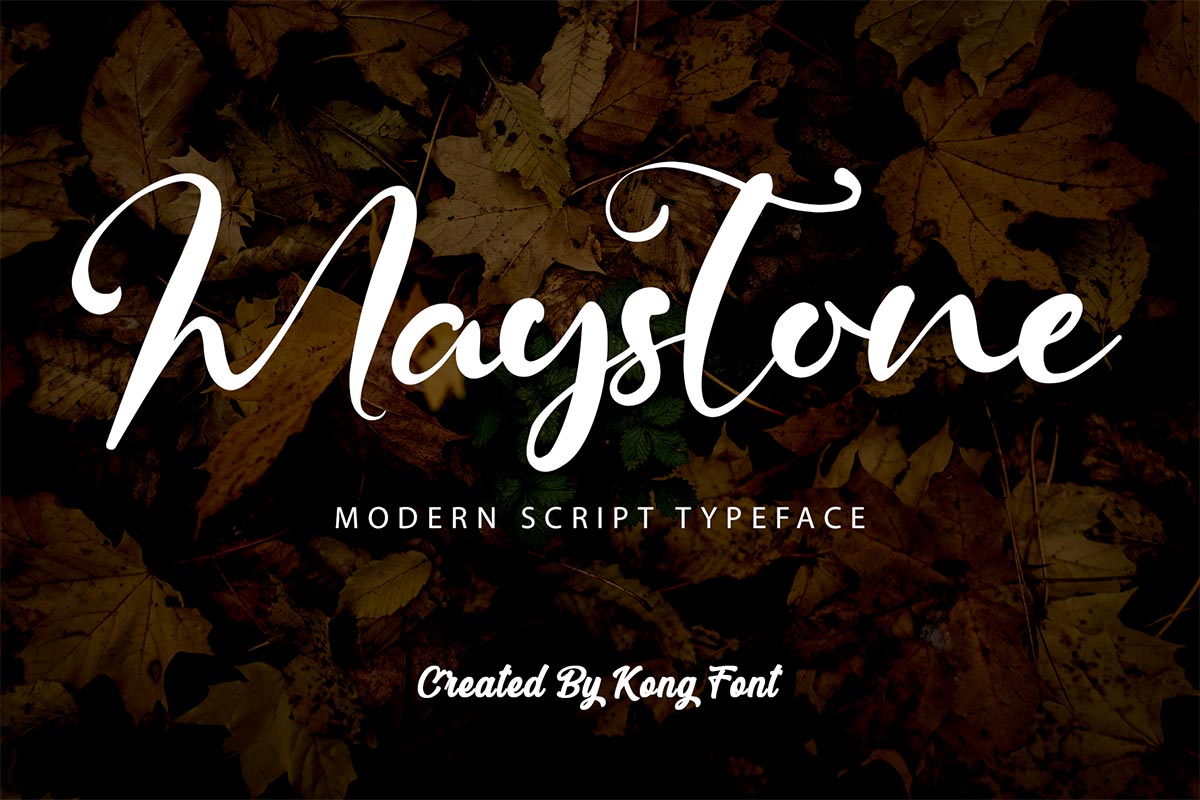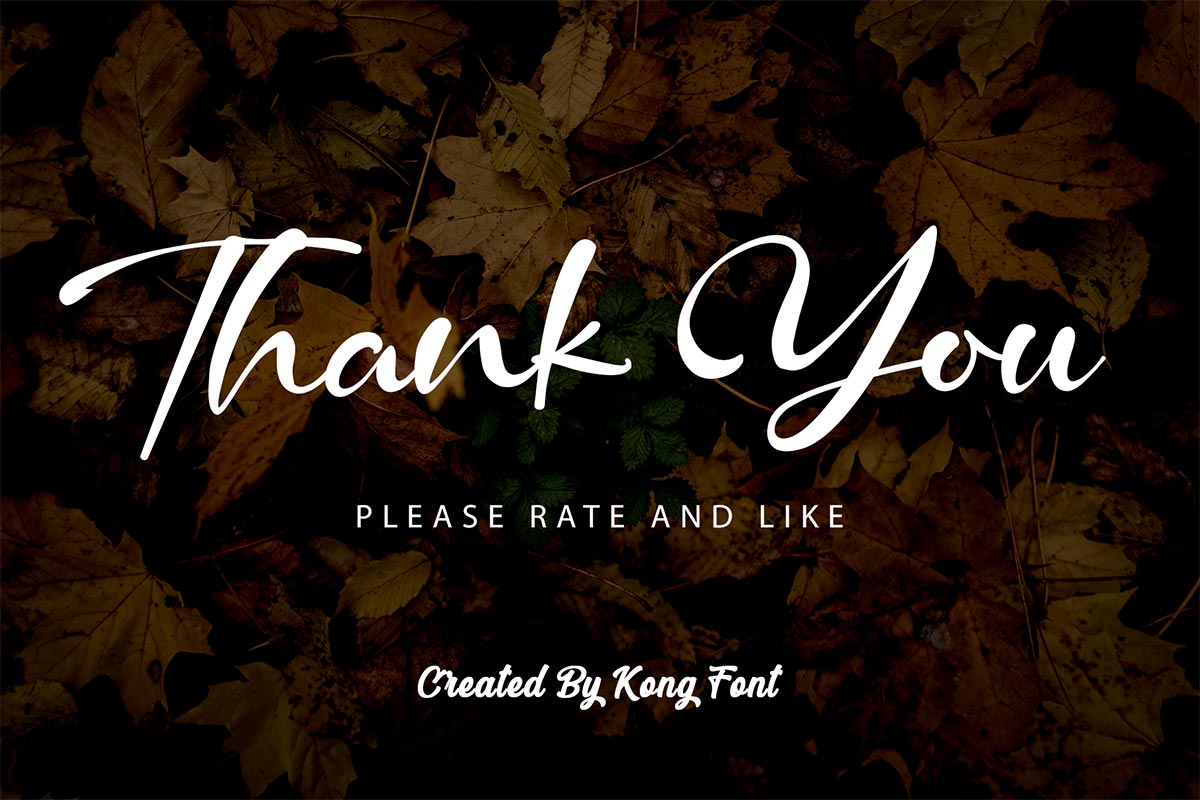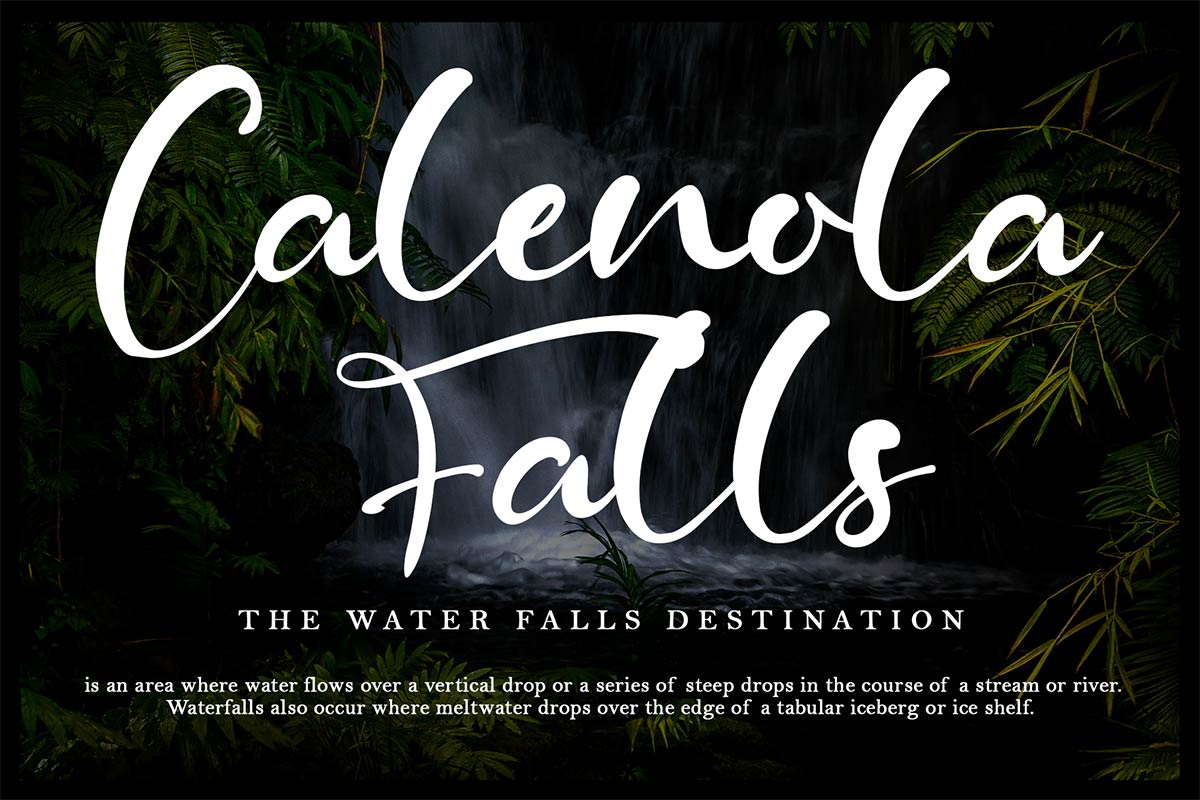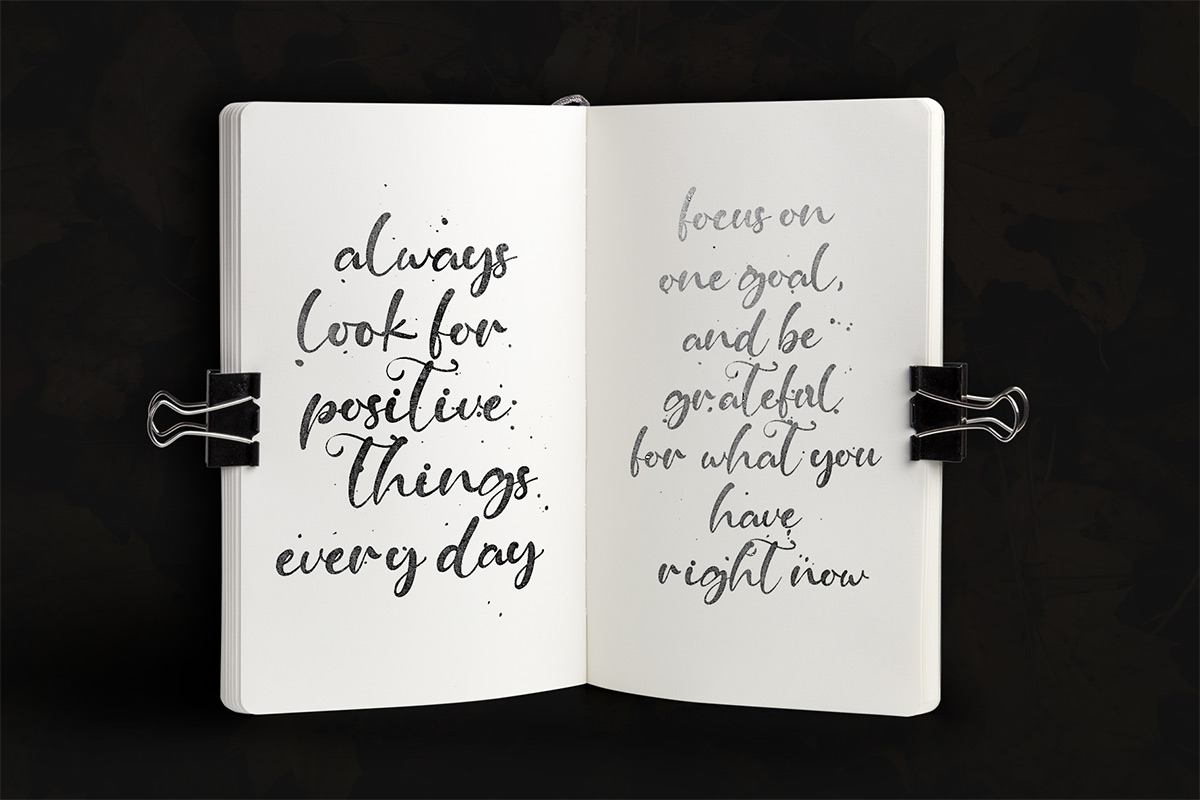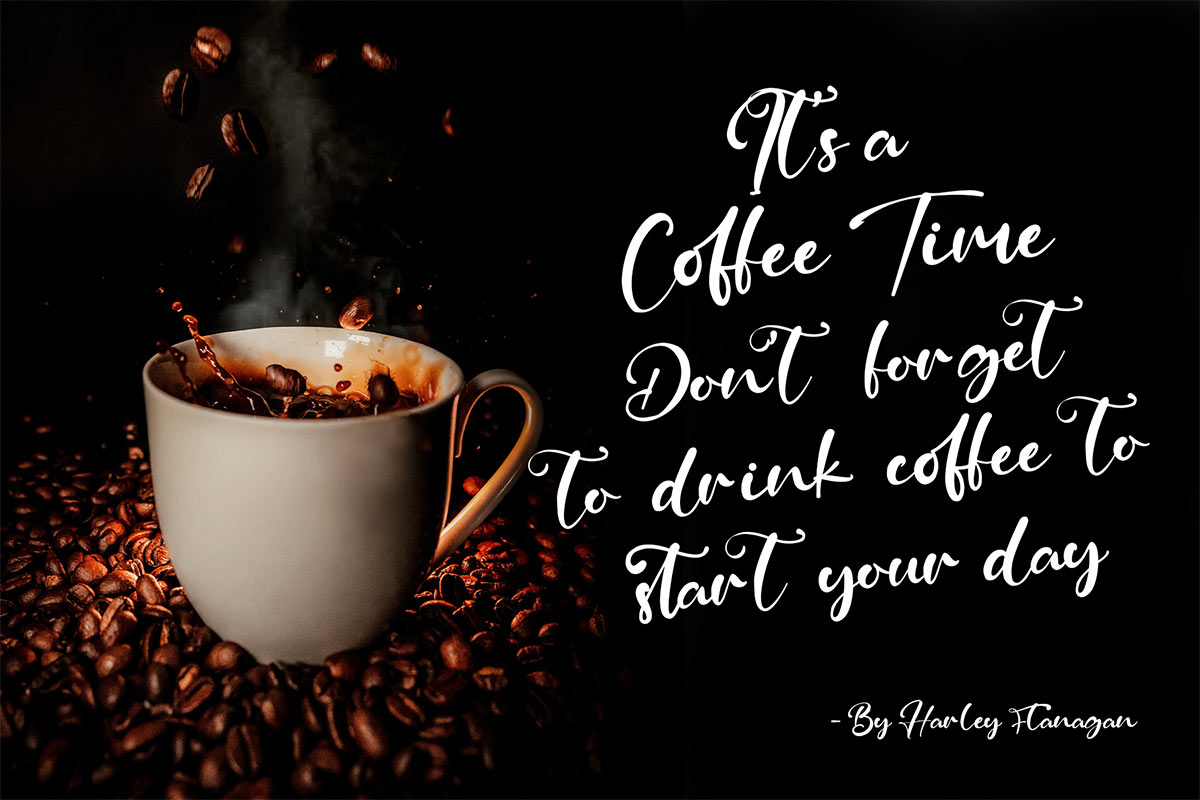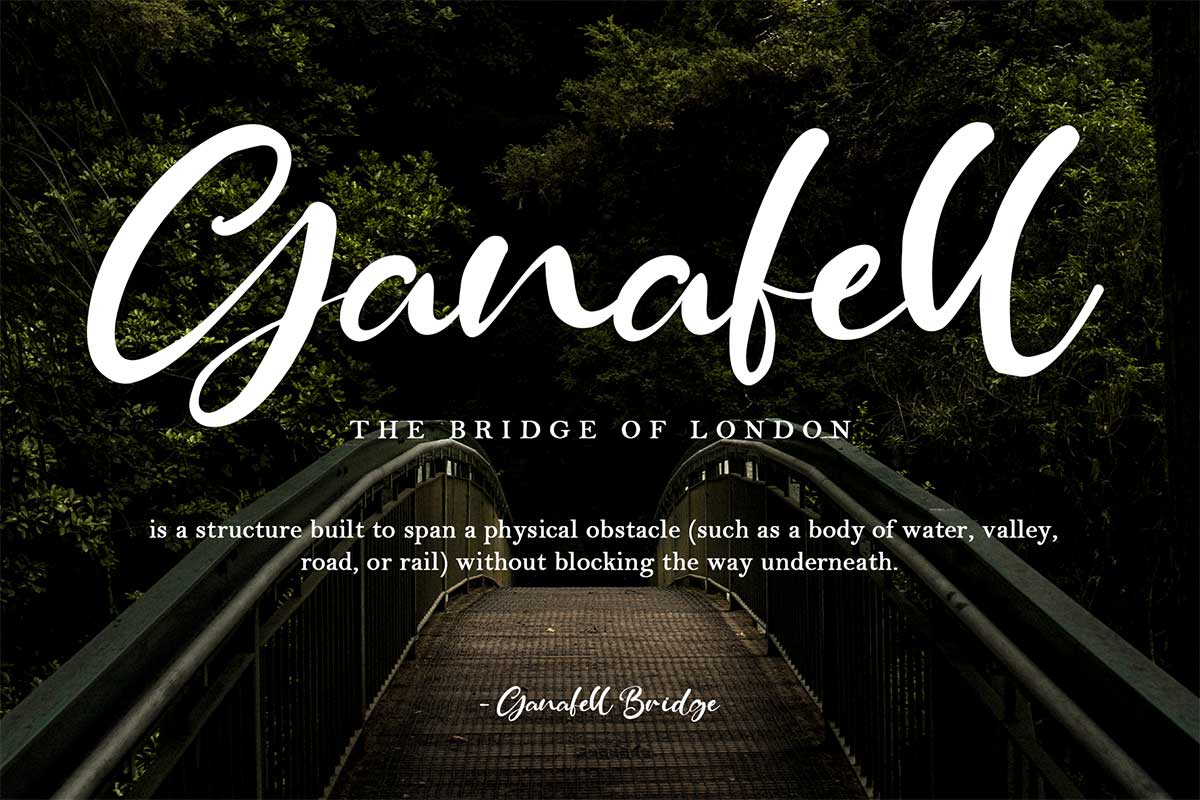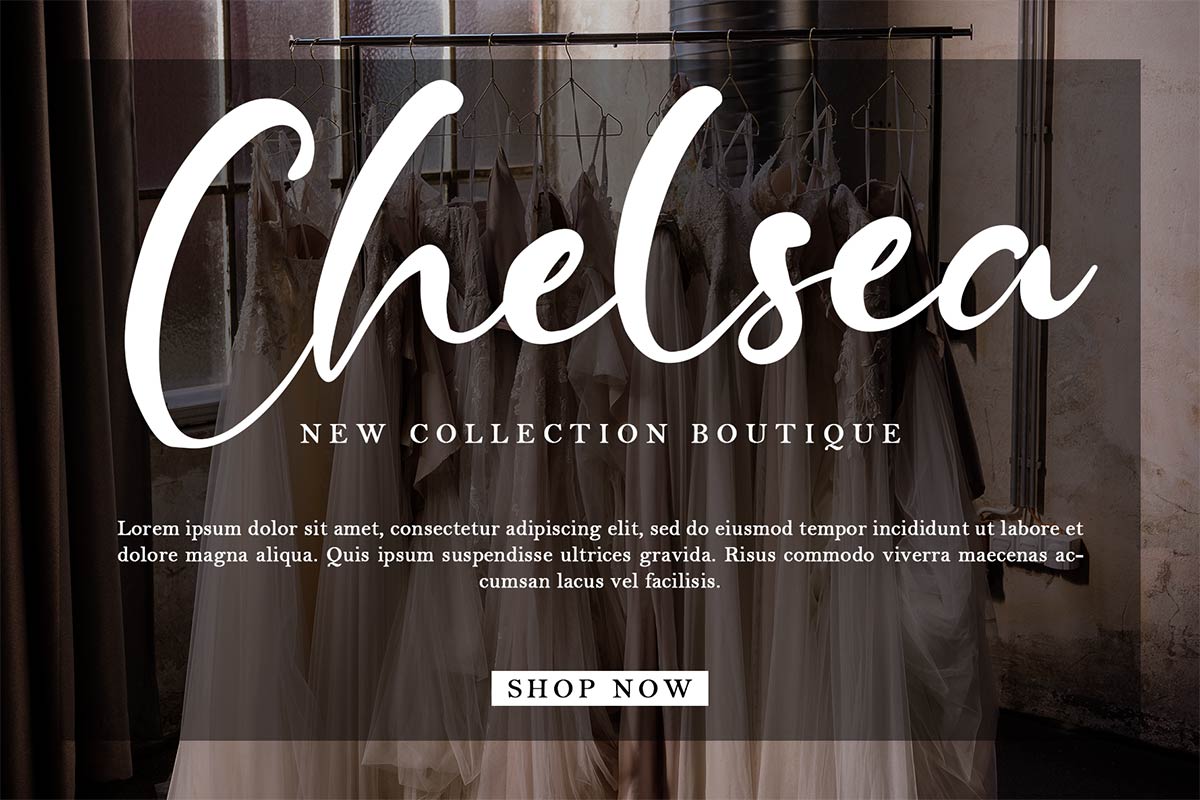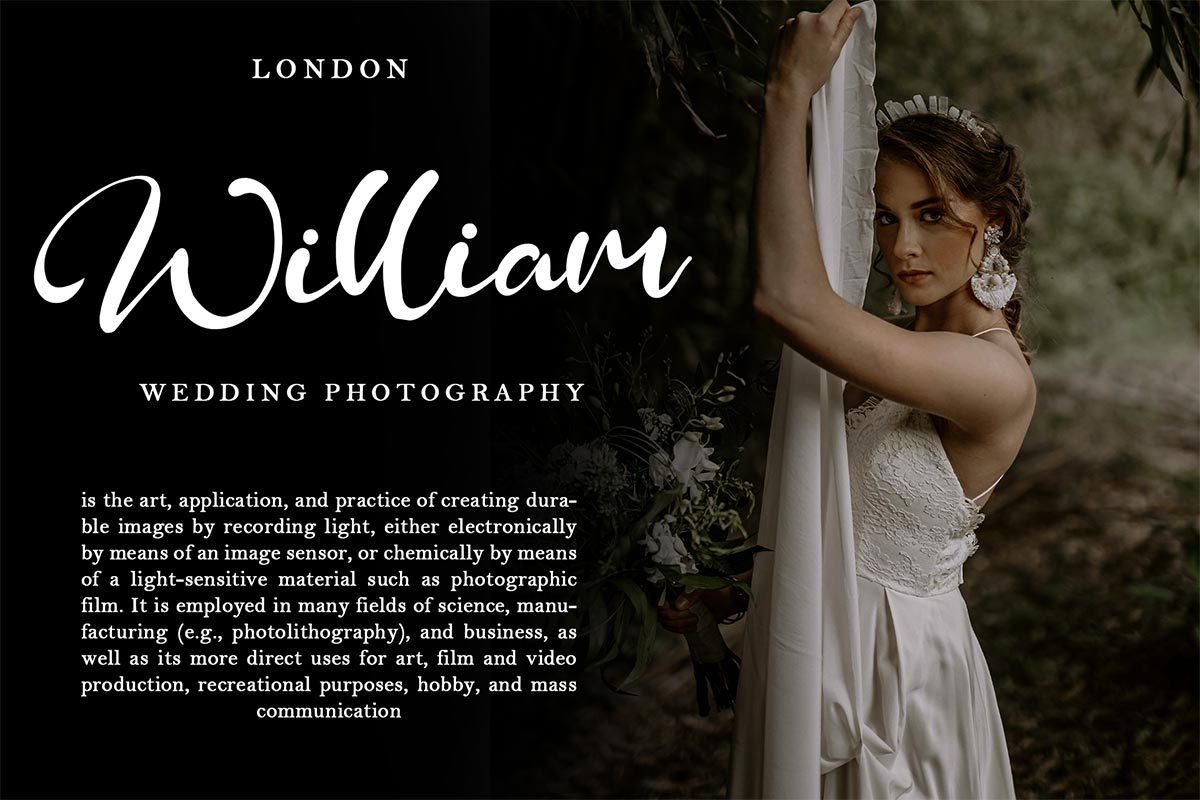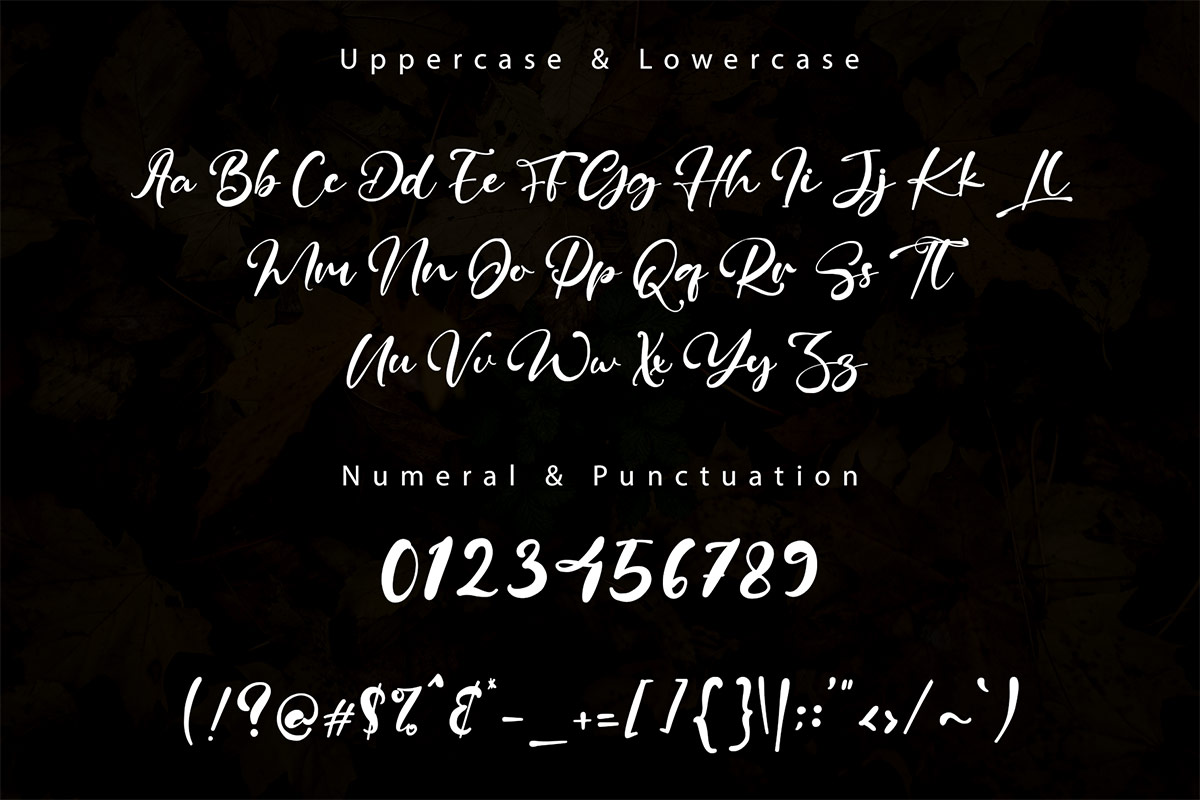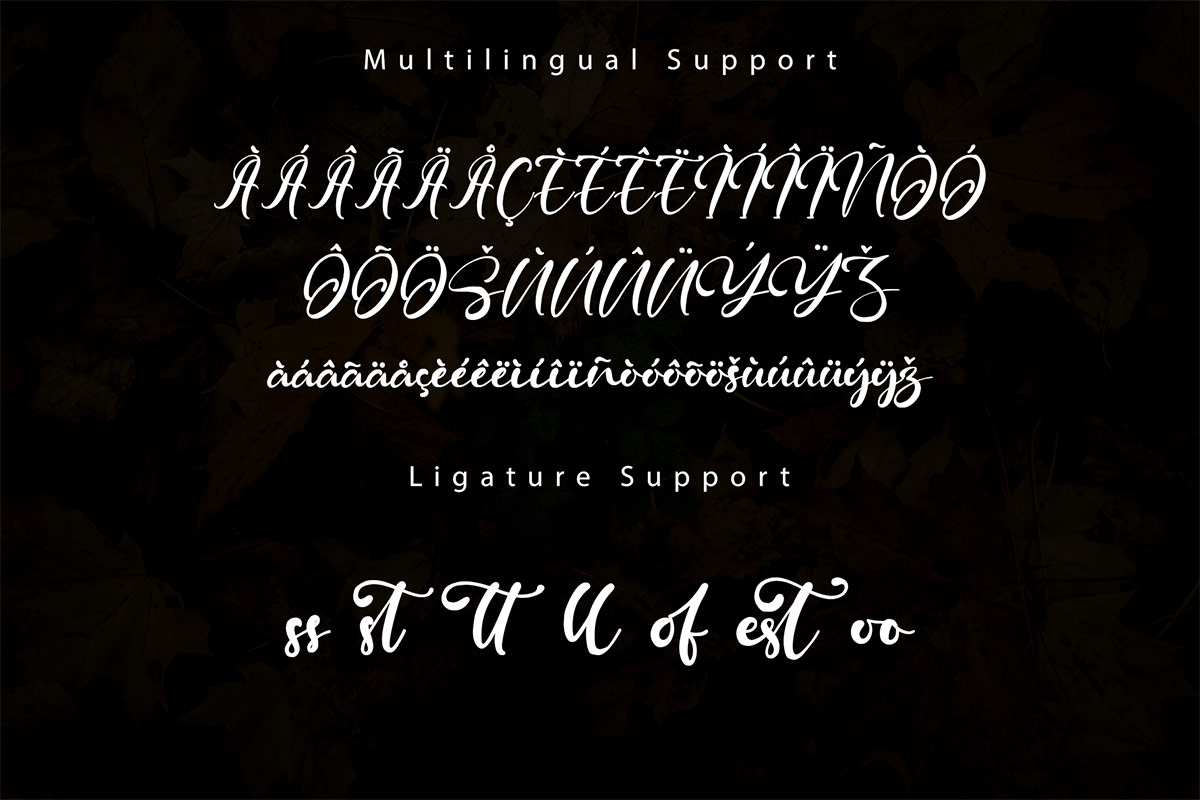
Maystone Modern Handwritten Font is a type of script font family. This typeface is a font type that uses brushes in its creation. Maystone Modern Handwritten Font looks very artistic and has a solid hand-made impression in its style. The rough edges and scratches on the font design add so much more to the font's aesthetic and modern impression. At the same time, these facts make Maystone Modern Handwritten Font one of the best choices to put on modern lifestyle tools. Maystone Modern Handwritten Font can be used to design graffiti, a mural, wall-paint art, skateboard art, or other types of street-inspired designs. Artworks on clothing items or merchandise, party, celebration, or formal event can use the Maystone Modern Handwritten Font as part of their design. The suitability of the Maystone Modern Handwritten Font against many things shows this font that must be taken into appeal and determine which font to use. Our scrip and signature fonts collection is compatible for use as Figma fonts, Canva fonts, Freepik Fonts, and Adobe Fonts. They also work as Windows Fonts and Apple Fonts. For your social media needs, you can use and install the fonts in our collection of brush typefaces to use as Instagram Fonts, Facebook Fonts, and Twitter Fonts.